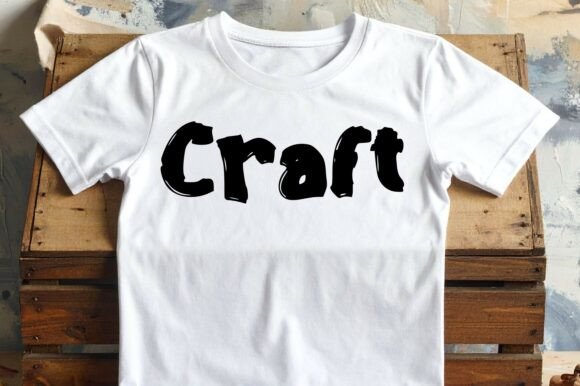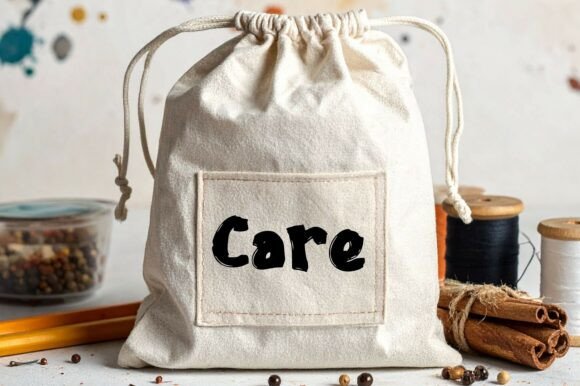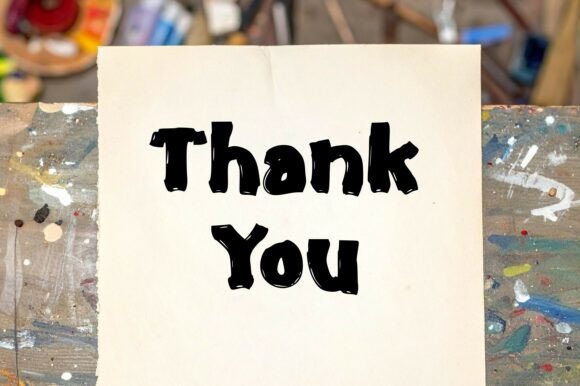
Discover the Charm of Combe Font: A Hand-Designed Display Font
Welcome to the subtly enchanting and uniquely audacious world of Combe, a hand-designed display font that beautifully encapsulates an artisan’s zeal and enthusiasm. In the realm of typography, Combe stands out as a beacon of creativity, reflecting the beguiling mystique of painted strokes or the rustic charm of chalk etchings. This font represents the unfiltered sentiments of genuine artistry, arresting the eye with its eccentric, brazen personality.
The Power of Imperfection: Combe’s Superbly-Flawed Construction
The power of Combe is rooted in its superbly-flawed construction. Its bold, sturdy appearance, softened by the lovable inconsistencies of hand-sketching, provides a captivating balance between firmness and gentleness. This distinctive characteristic sets Combe apart from more conventional fonts, offering a refreshing alternative for designers seeking to add a touch of authenticity to their work.
A Tribute to Unconventional Attraction
Combe deviates from the standard with minimal design variations that exude authenticity, allure, and amicability, promising to emotionally enthrall your audience. This engaging font set is a broad suite featuring uppercase and lowercase alphabets intentionally fashioned to make a strong impression. The numerals that flawlessly continue the unique bold style are a testament to the font’s versatility and attention to detail.
Key Features of Combe Font
- Hand-designed display font: Combe is a meticulously crafted font, boasting a unique character that sets it apart from more generic fonts.
- Bold and sturdy appearance: The font’s robust design makes it perfect for headlines, titles, and other display purposes.
- Lovable inconsistencies: The subtle imperfections in Combe’s design add a touch of warmth and humanity, making it relatable and engaging.
- Uppercase and lowercase alphabets: Combe features a comprehensive set of letters, ensuring versatility and flexibility in your design projects.
- Numerals and special characters: The font includes a range of numerals and special characters, all designed to maintain the same level of quality and consistency as the alphabet.
Why Choose Combe Font?
Combe font is an excellent choice for designers and crafters looking to add a personal touch to their work. Its distinctive character makes it perfect for a variety of applications, including:
- Branding and logos: Combe’s bold, eye-catching design makes it an excellent choice for creating memorable brand identities.
- Headings and titles: The font’s sturdy appearance and elegant flair make it perfect for use in headings, titles, and other display text.
- Packaging and advertising: Combe’s unique character and emotional resonance make it an excellent choice for packaging and advertising projects.
- Digital and print media: The font’s versatility and legibility make it suitable for use in a range of digital and print media, from websites and social media to brochures and posters.
In conclusion, Combe font is a hand-designed display font that embodies the spirit of artisanal creativity. Its superbly-flawed construction, bold appearance, and lovable inconsistencies make it a captivating choice for designers and crafters seeking to add a touch of authenticity to their work. With its comprehensive character set, versatility, and emotional resonance, Combe is an excellent choice for a wide range of design projects.
Whether you’re a seasoned designer or a crafty entrepreneur, Combe font invites you to explore the world of typography and discover the power of genuine artistry. So why settle for generic fonts when you can make a statement with Combe?